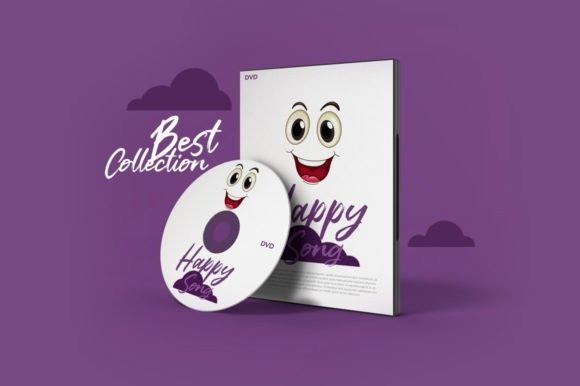
Mauve Smile Font
Mauve Smile Script Font is a fun and cool brush script font. Whether you use it for cartoon-related designs, children’s games, or just any creation that requires a playful touch, this font is the perfect choice for your designs!